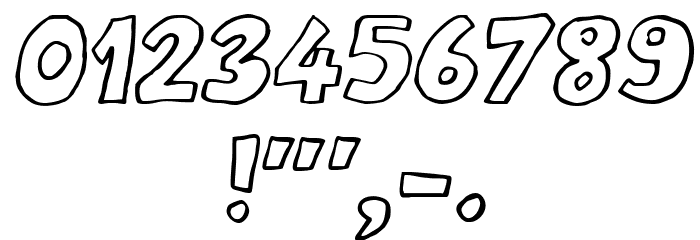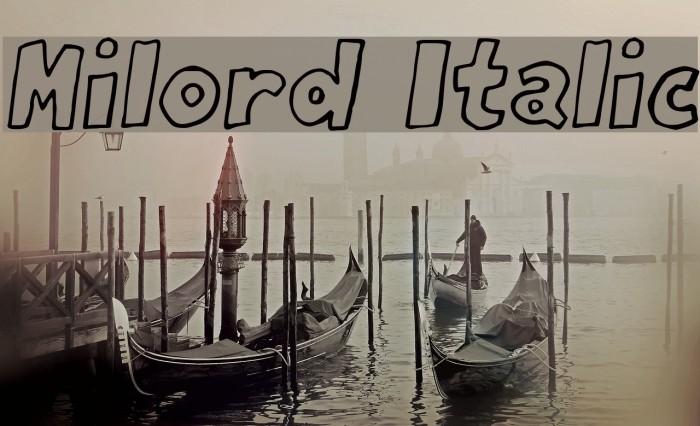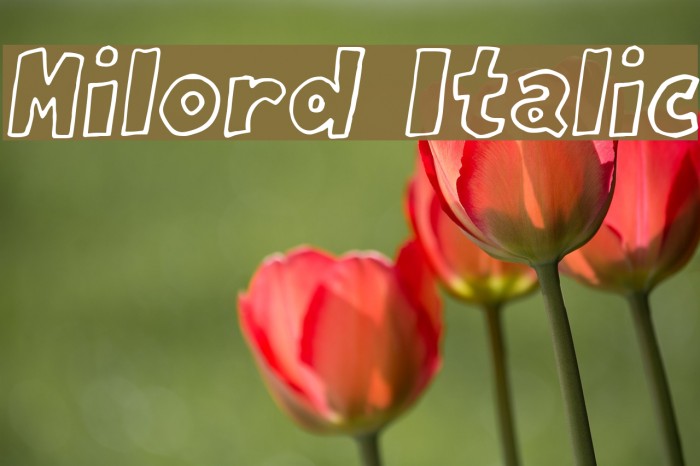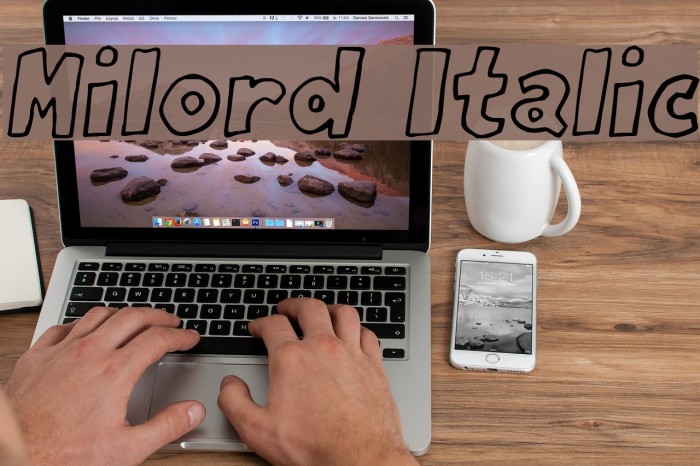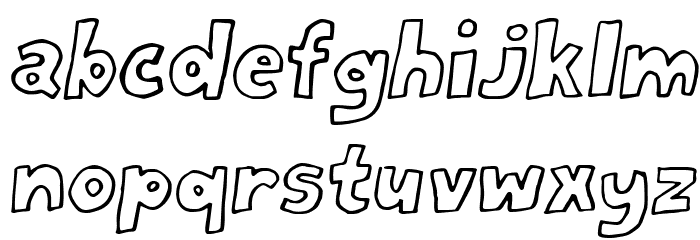
Milord Italic Font
This font features a playful and bold style with a hand-drawn appearance. The characters are outlined, giving them a cartoonish and informal look. The uppercase and lowercase letters maintain a consistent style, with rounded edges and a slightly uneven baseline that adds to the whimsical feel. The numbers and special characters follow the same design, ensuring uniformity across all glyphs. The font's unique style makes it stand out, suitable for projects that require a fun and engaging visual element.
A playful, hand-drawn outlined font with a cartoonish style.
• Proposed Projects: Ideal for children's books, comic strips, playful branding, and informal event invitations.
• Category: Decorative/Display
• Contrast: Low
• Overall Style: Playful, Cartoonish, Informal
• Use Case: Headlines, Logos, Posters